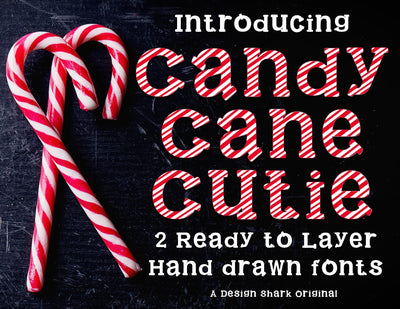
Candy Cane Cutie
This comes with two fonts for layering, a solid base and the striped layer! Use them together or by themselves for the perfect design.
Perfect for crafters and die cutting machines.